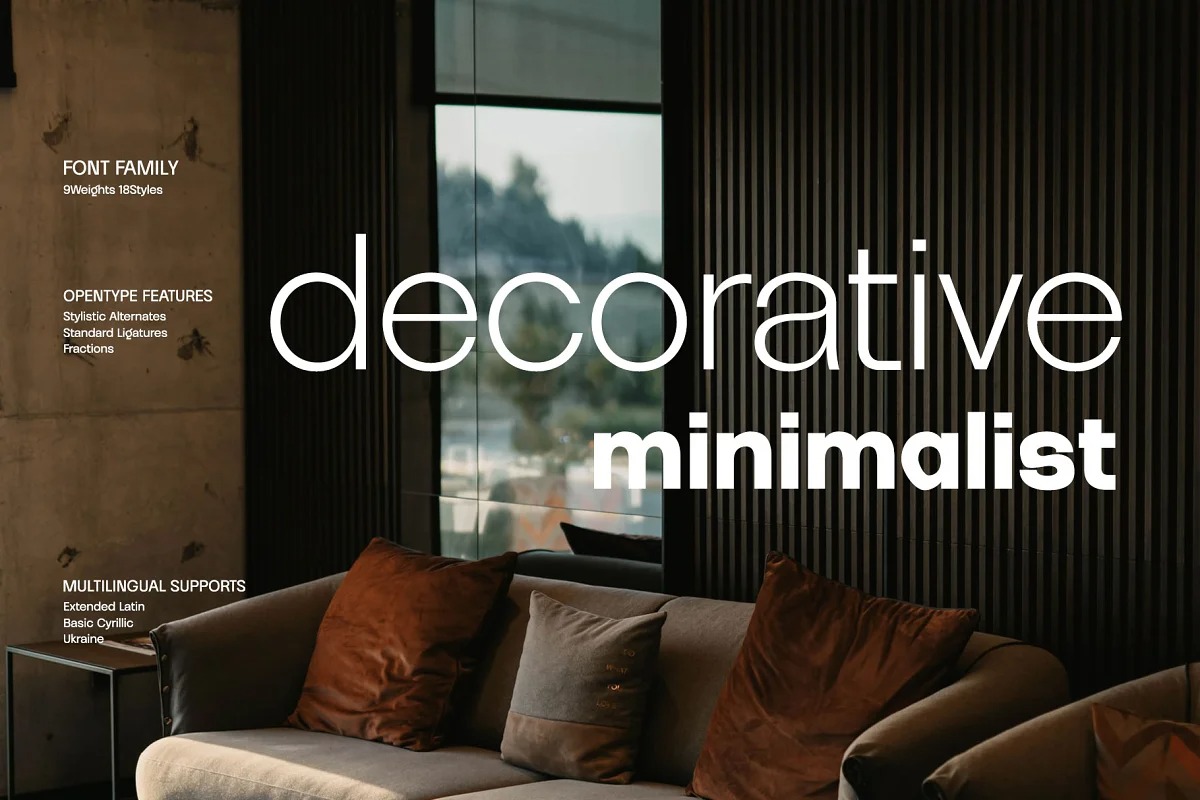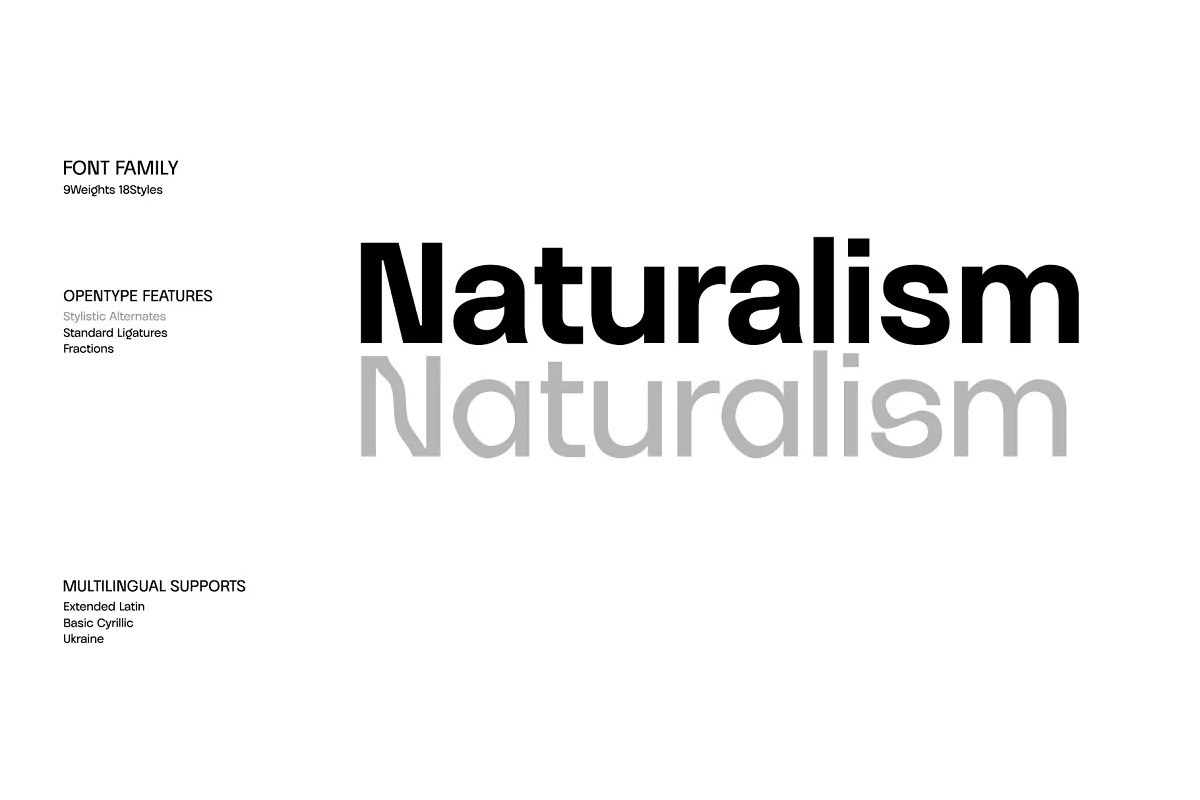
Priego Font Family
Priego Sans Serif Font
This is a generic and neutral typeface but with enough personality to be different, but not as much to be unfamiliar. This modern sans font family is designed to complement each other with balanced stem consistency and resisting Alternates. If you want to meet a grotesque with a different feel, try using these Alternates.